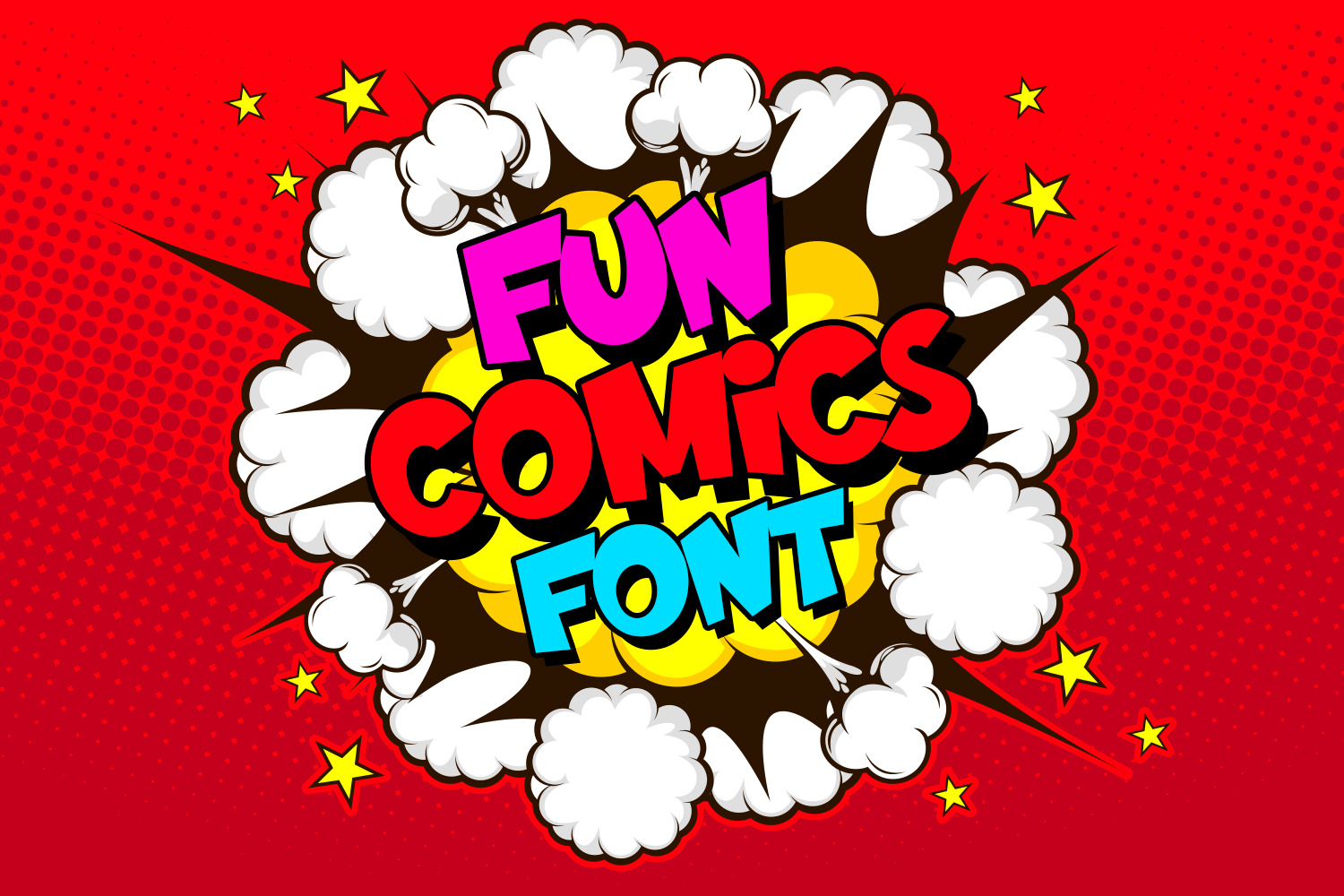
Fun Comics Font
Font Description:
Bring your designs to life with Fun Comics, a vibrant and energetic display font inspired by classic superhero comic books and pop art culture. This bold, hand-lettered style is designed to jump off the page, making it the perfect choice for high-impact titles, gaming graphics, and children's illustrations.
Whether you are creating a YouTube thumbnail, a "Special Offer" marketing banner, or a graphic novel, this font provides a playful yet professional aesthetic. Its irregular, bouncy letterforms capture a sense of action and excitement, ensuring your message is never missed.
- Unique letterforms